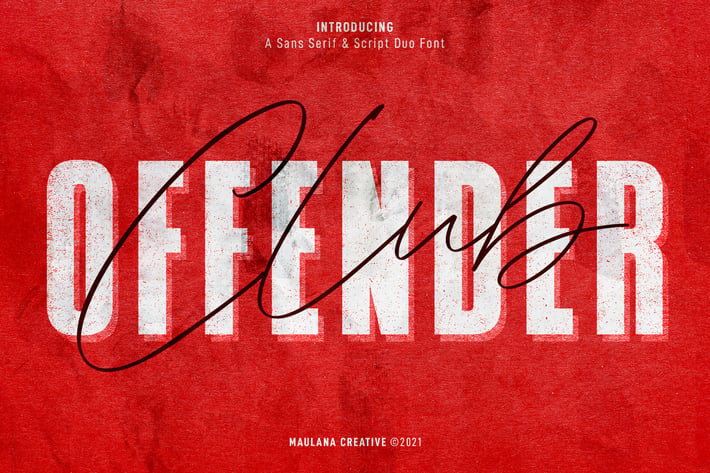
Offenders Club Sans Serif Script Font Duo
Offenders Club is a signature script and sans serif font. With thin felt tip stroke condensed sans serif Display, fun character with a bit of ligatures. To give you an extra creative work. Offenders Club font support multilingual more than 100+ language. This font is good for logo design, Social media, Movie Titles, Books Titles, a short text even a long text letter and good for your secondary text font with sans or serif. Make a stunning work with Offenders Club font.